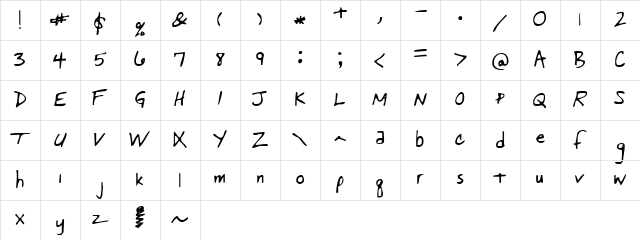
Pastorswrit Regular Free Font
Pastorswrit Regular
Design Context for Pastorswrit
Pastorswrit is a composed and adaptable typeface that performs quietly and consistently across a wide range of design contexts.